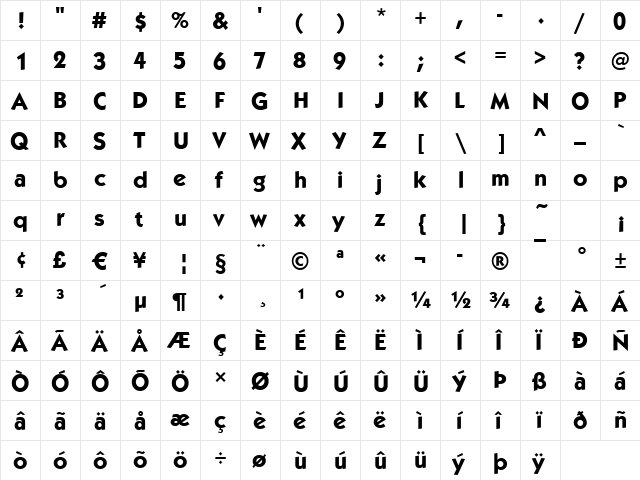
Koblenz-Bold Regular
Design Context for Koblenz-Bold Typeface
Koblenz-Bold is a composed and adaptable typeface that performs quietly and consistently across a wide range of design contexts. The heavy weight commands attention and anchors typographic hierarchies.